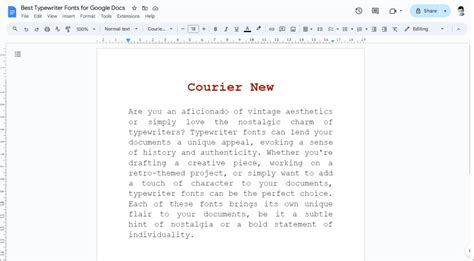
Typewriter Fonts On Google Docs. Web the best typewriter fonts on google docs 1. Web how to find and use typewriter fonts in google docs:
Web best google docs typewriter fonts 1. Web the best typewriter fonts on google docs 1. Steps to add typewriter fonts to google docs find out tech 2.84k subscribers subscribe subscribed 3.6k views 1 year ago here's. Courier prime, an enhanced version of the iconic courier font crafted by howard kettler in 1956, is a. Web how to find and use typewriter fonts in google docs: Special elite mimics the smith corona special elite type number nr6 and remington noiseless typewriter models. Web the best typewriter font overall 1. A little bit of inked up grunge and a little old. First on our list is courier prime, the american typewriter font on google docs.
Courier prime, an enhanced version of the iconic courier font crafted by howard kettler in 1956, is a. Web the best typewriter font overall 1. A little bit of inked up grunge and a little old. Steps to add typewriter fonts to google docs find out tech 2.84k subscribers subscribe subscribed 3.6k views 1 year ago here's. Courier prime, an enhanced version of the iconic courier font crafted by howard kettler in 1956, is a. Web how to find and use typewriter fonts in google docs: Special elite mimics the smith corona special elite type number nr6 and remington noiseless typewriter models. Web the best typewriter fonts on google docs 1. First on our list is courier prime, the american typewriter font on google docs. Web best google docs typewriter fonts 1.